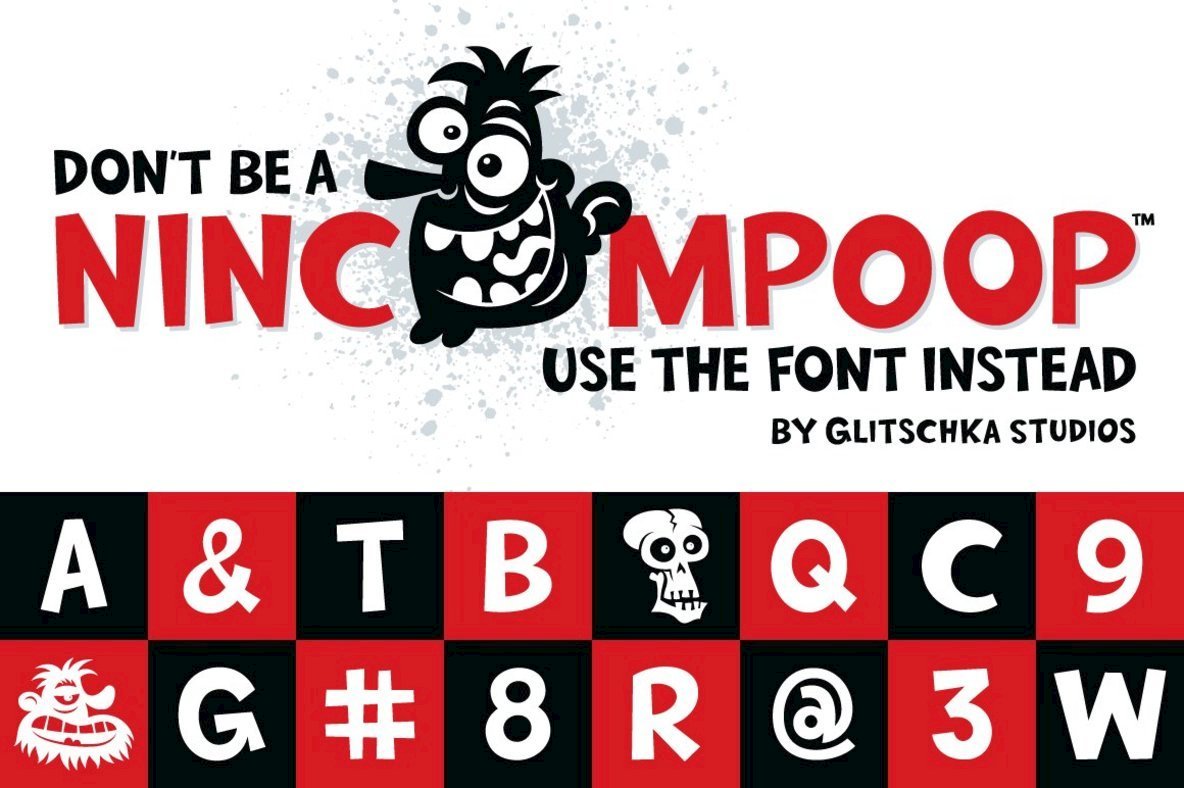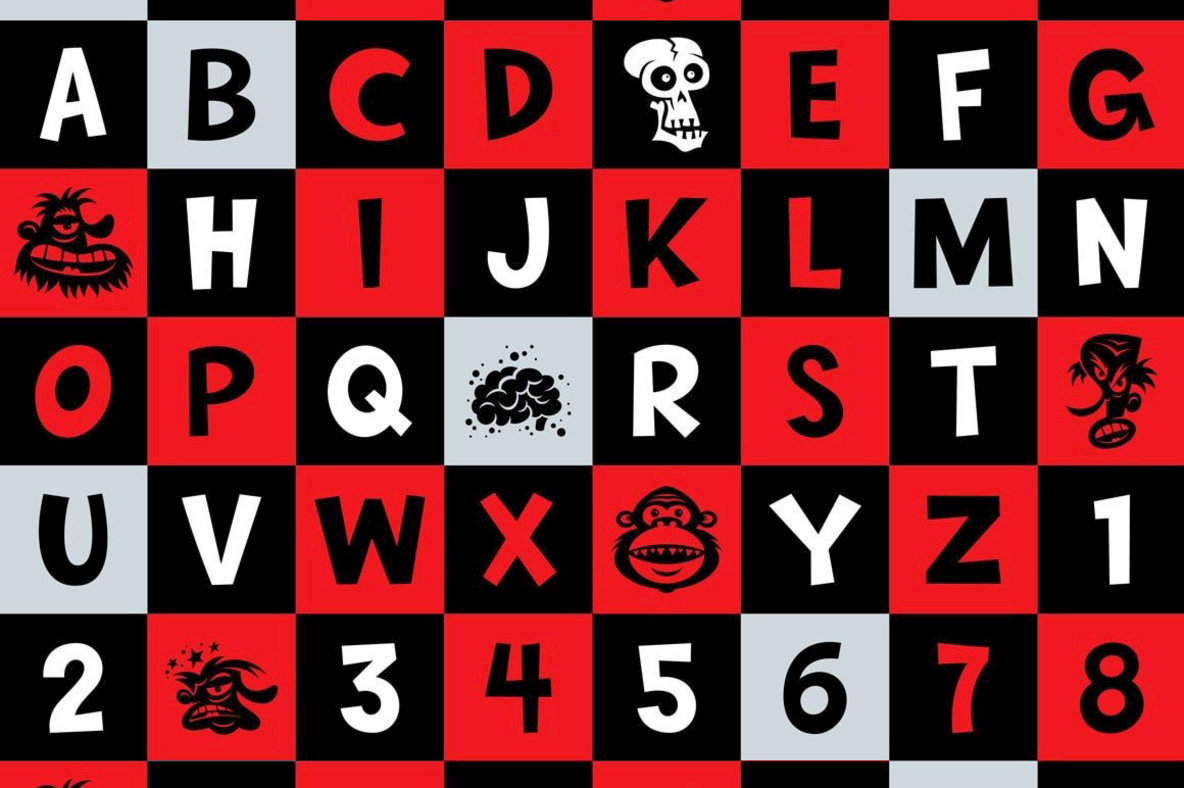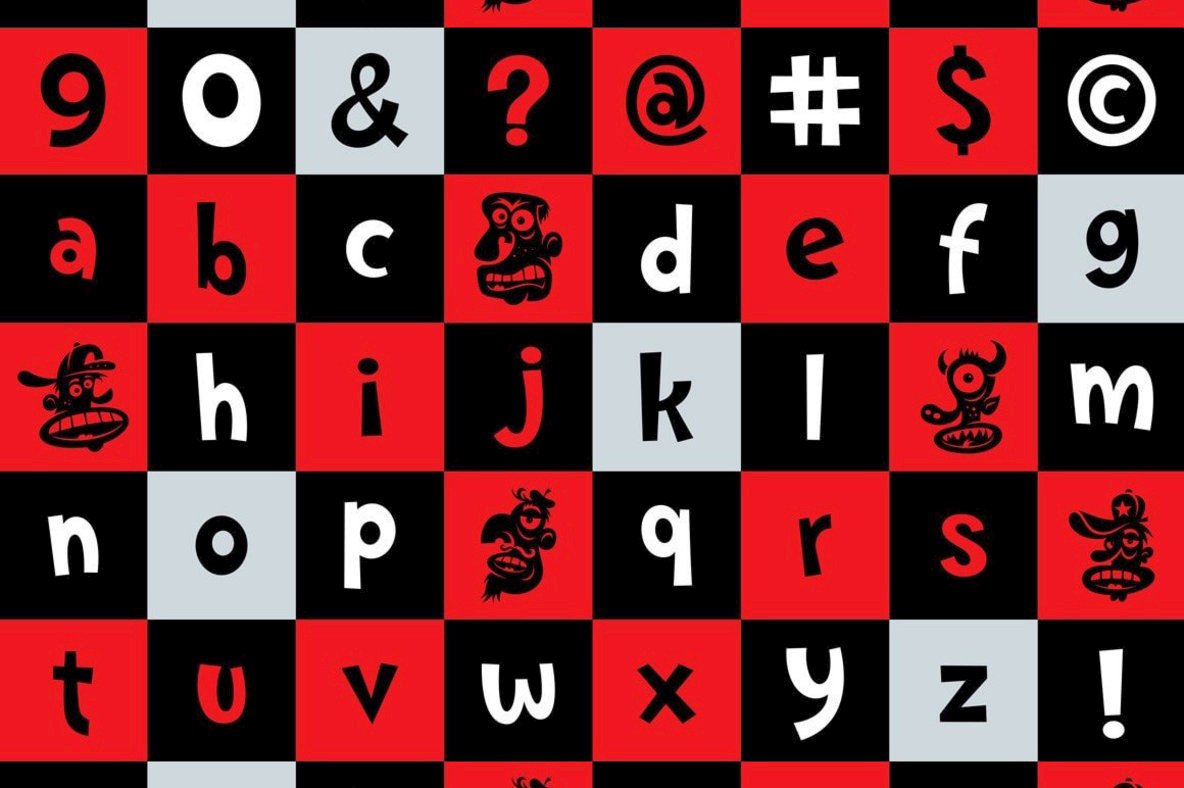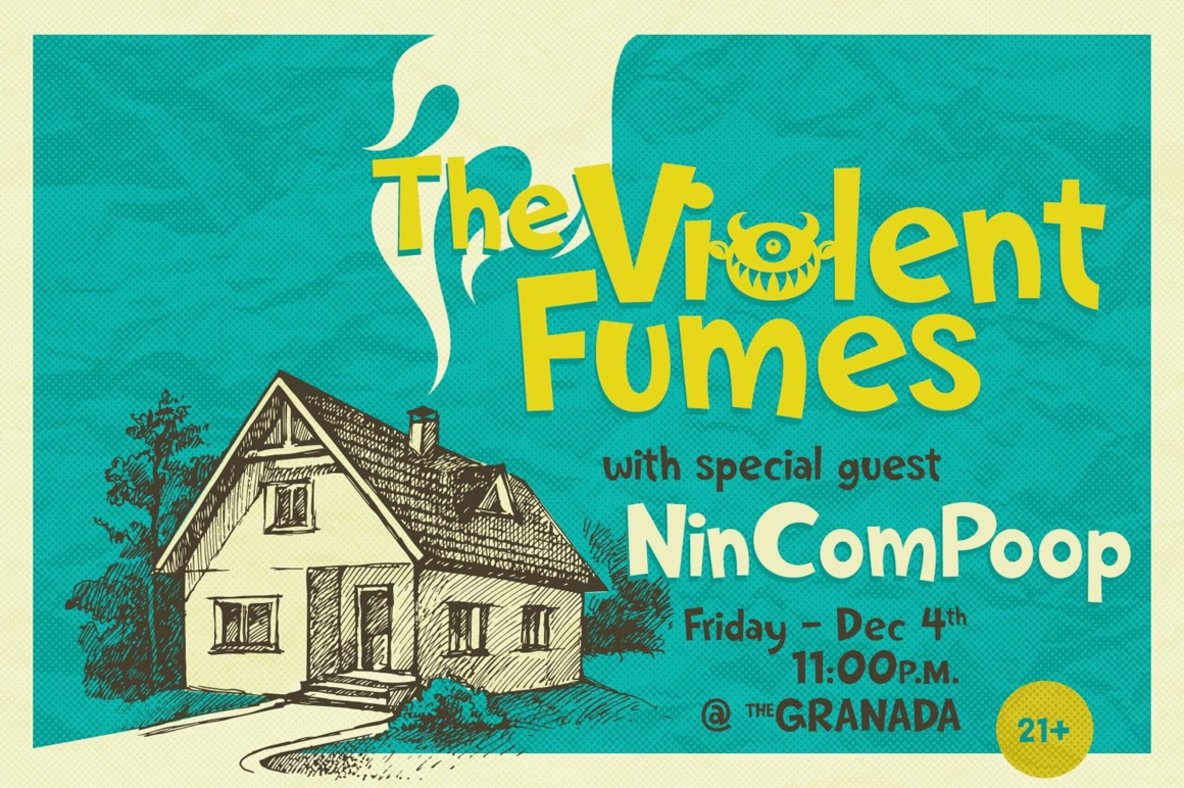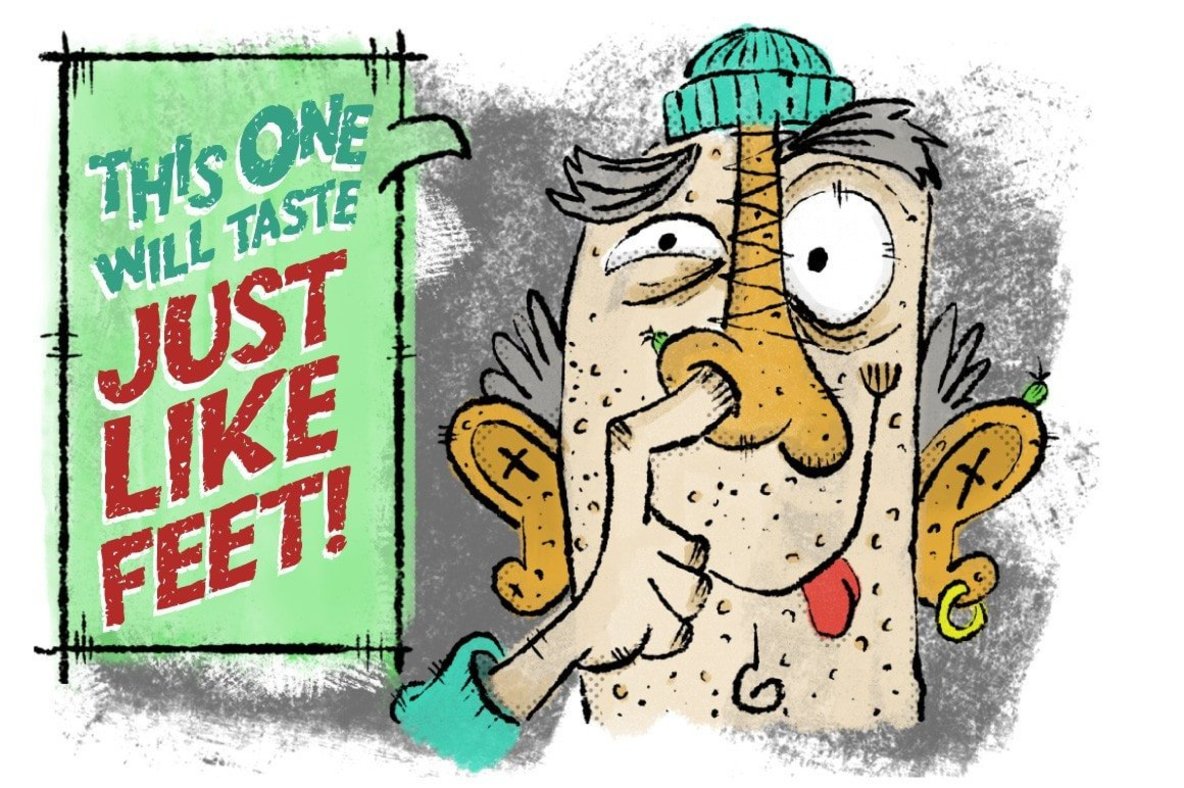
Nincompoop Font
Nincompoop
• Includes alphanumerics, custom glyphs and alternate letterforms
• A fun and approachable hand crafted sans-serif
• Designed to be friendly and easy to read
• Includes 10 vector art Nincompoop heads
• Created with love and care by Glitschka Studios
Let the friendliness and quirkiness of your next design project shine.
Self-producing a comic for your buddies? Nincompoop's got your back with its friendly tone and easy readability.
Hired to create some kids packaging? Nincompoop will grab kids attention and draw it into the package design like ants to Sugar Daddies.
Plus, what font would be complete without a set of heads? We've included some awesome looking heads (and a skull just cause) as special characters.
Did we mention this font was created by mad vector genius Von Glitschka? This font is like owning a little piece of Glitschka art you can call your own (and use on projects).
ABOUT THE DESIGNER
Von Glitschka Nincompoop fontNincompoop was designed by award-winning illustrator, designer, teacher and author Von Glitschka. Until now this font was part of Von's personal collection of resources. Now you can have this hand crafted typeface for your personal arsenal.